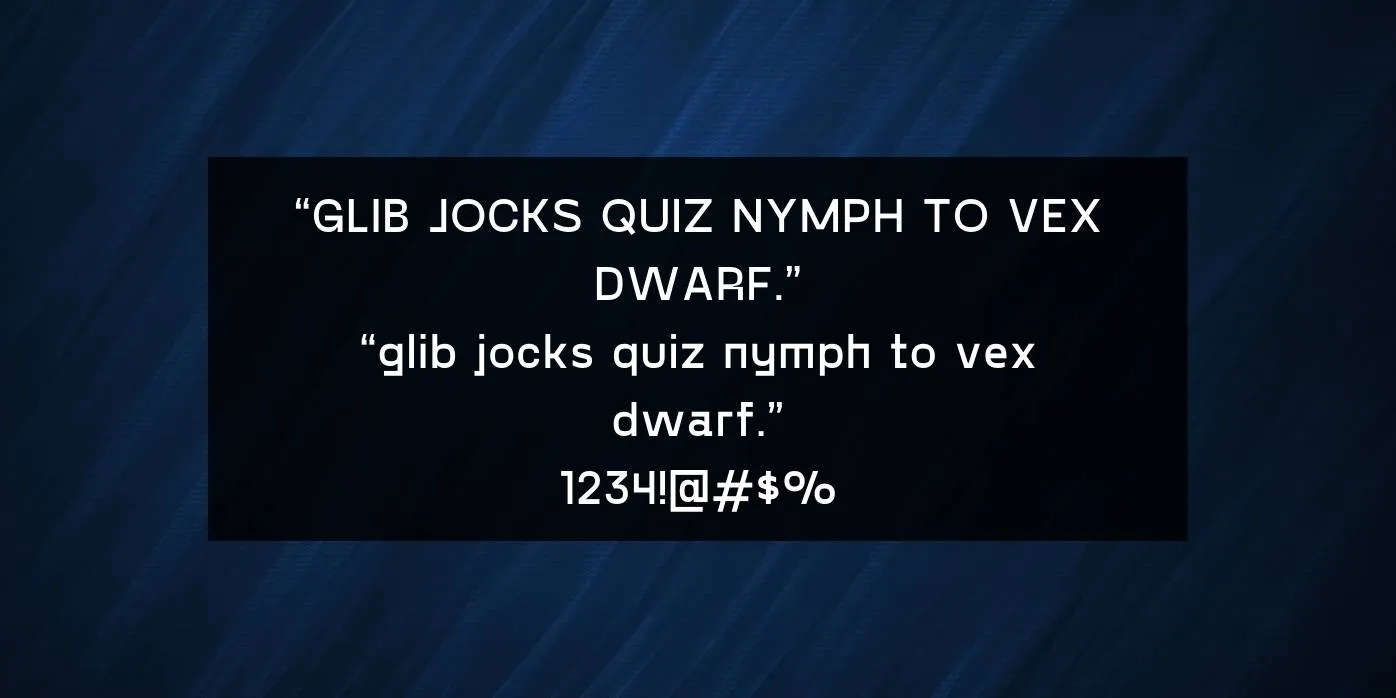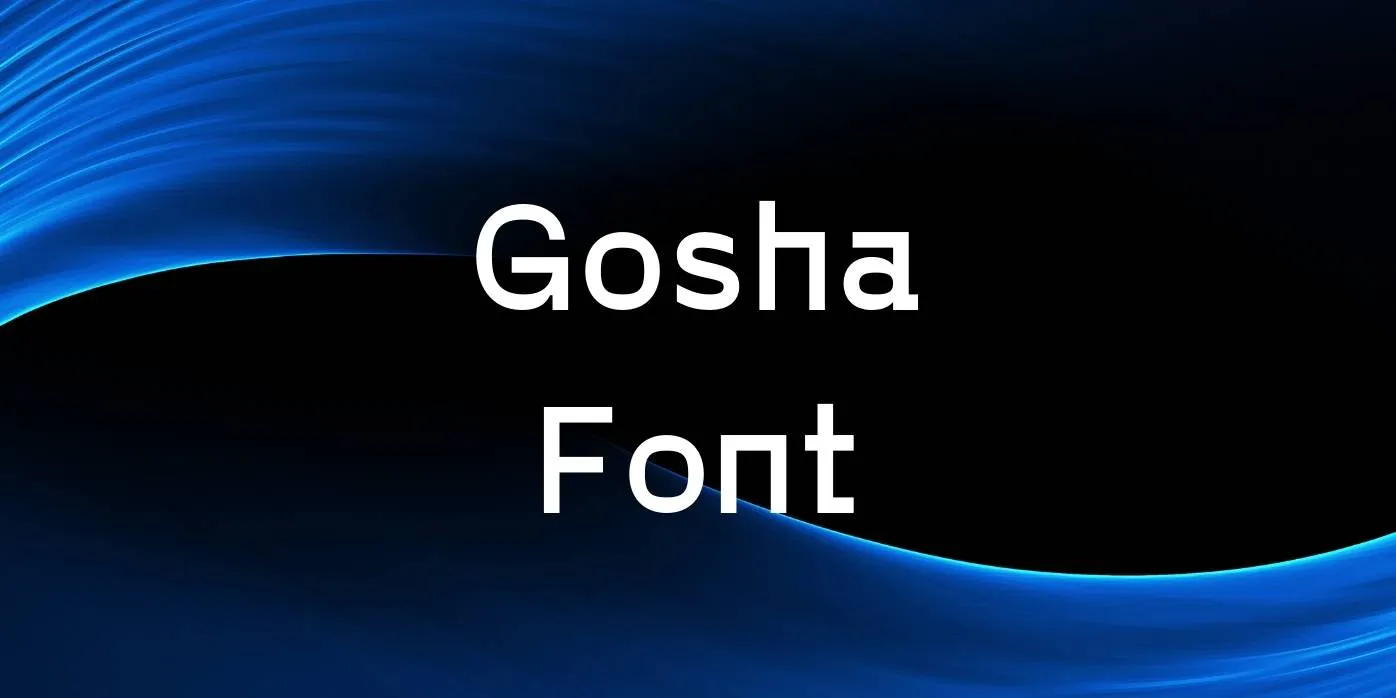
Gosha Font
Here, we introduce a modern typeface named Gosha Font. this typeface is a sans serif typeface and was designed by Dmitry Goloub. This Font is perfect for headlines, posters, and other display purposes. This awesome font has a modern look and feel, and it is very versatile.
This typeface has two styles, Gosha Sans and Gosha Serif. Both styles have different purposes and uses. It has a very modern look and feels, and it is very versatile. This typeface has two weights, light and regular.
If you are looking for a modern sans serif typeface, this font is a great choice. It is very versatile and can be used for many different purposes. You can also use its alternative nunito sans font for different designs.  You can also utilize the text generator tool of this family which is suitable for a lot of graphic designs.